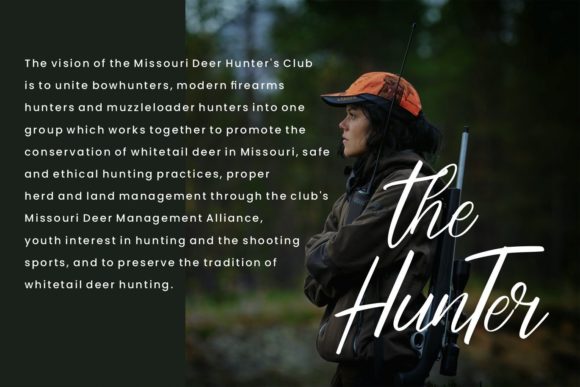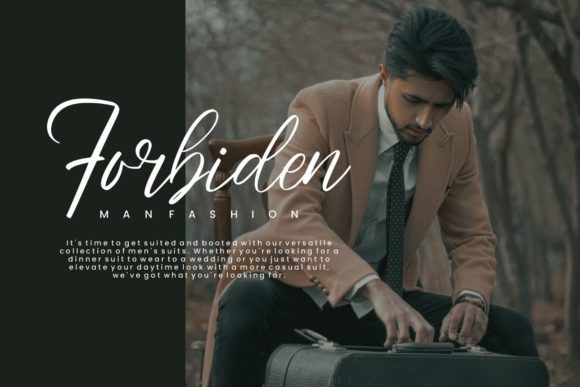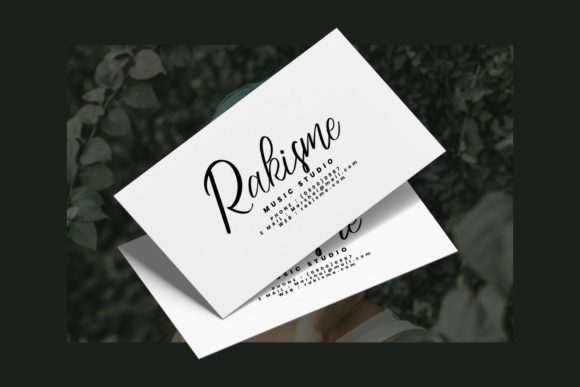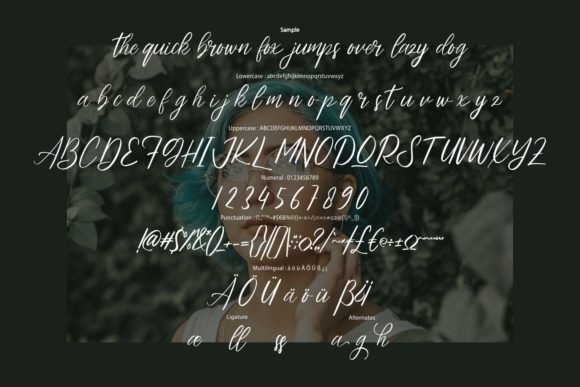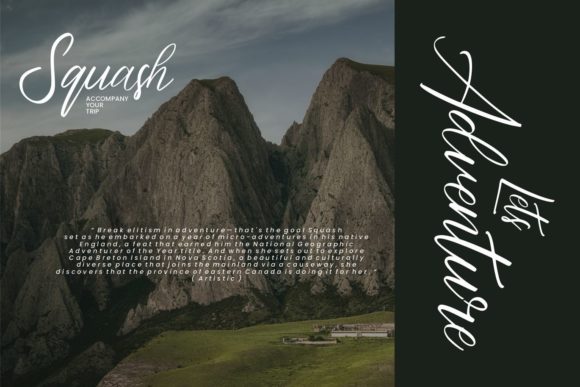
Aghessta Script Font
About Aghessta Script Font
Aghessta Script is a ravishing and fabulous calligraphy typeface with characters that dance along the baseline. It will add a luxury spark to any design project that you wish to create!